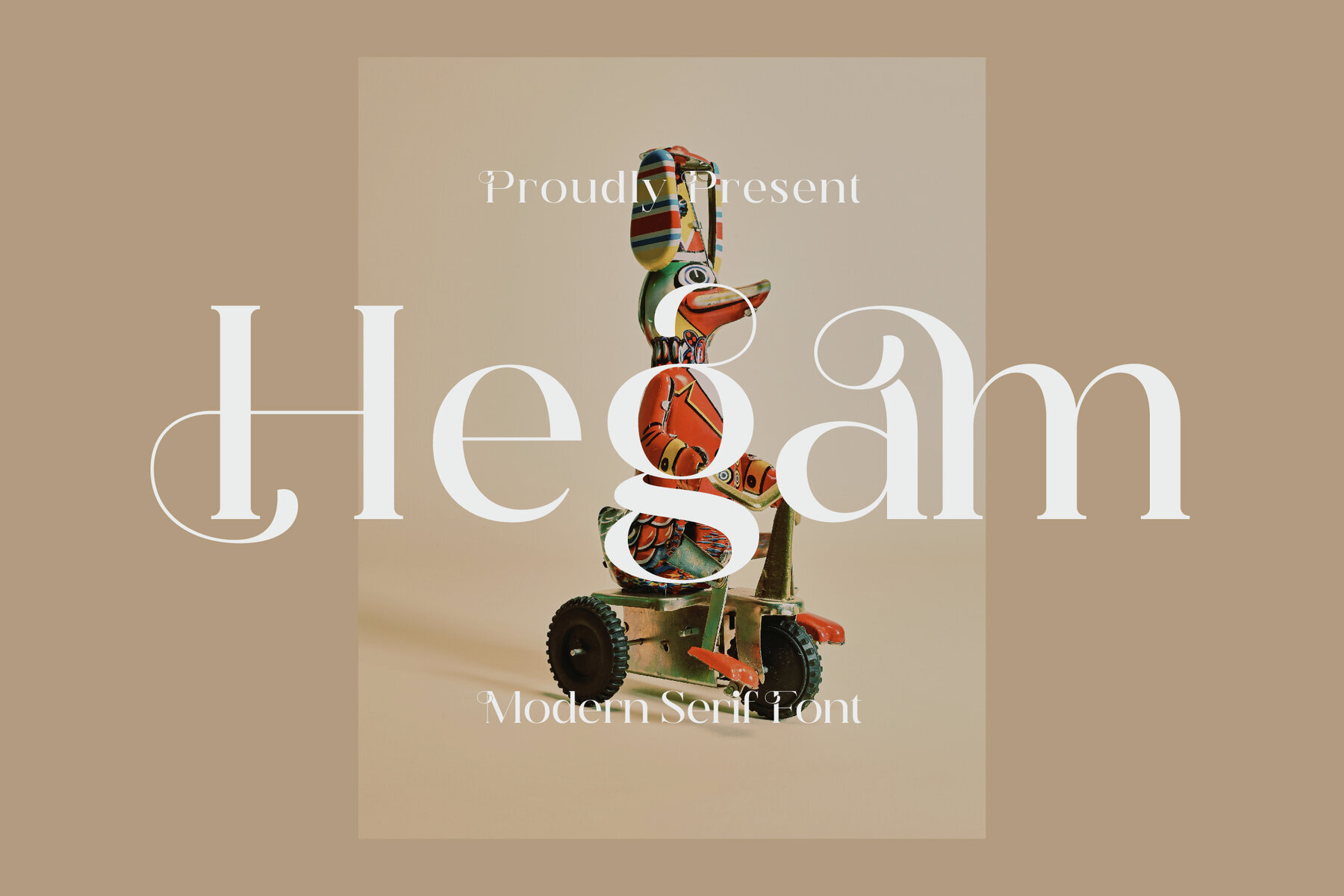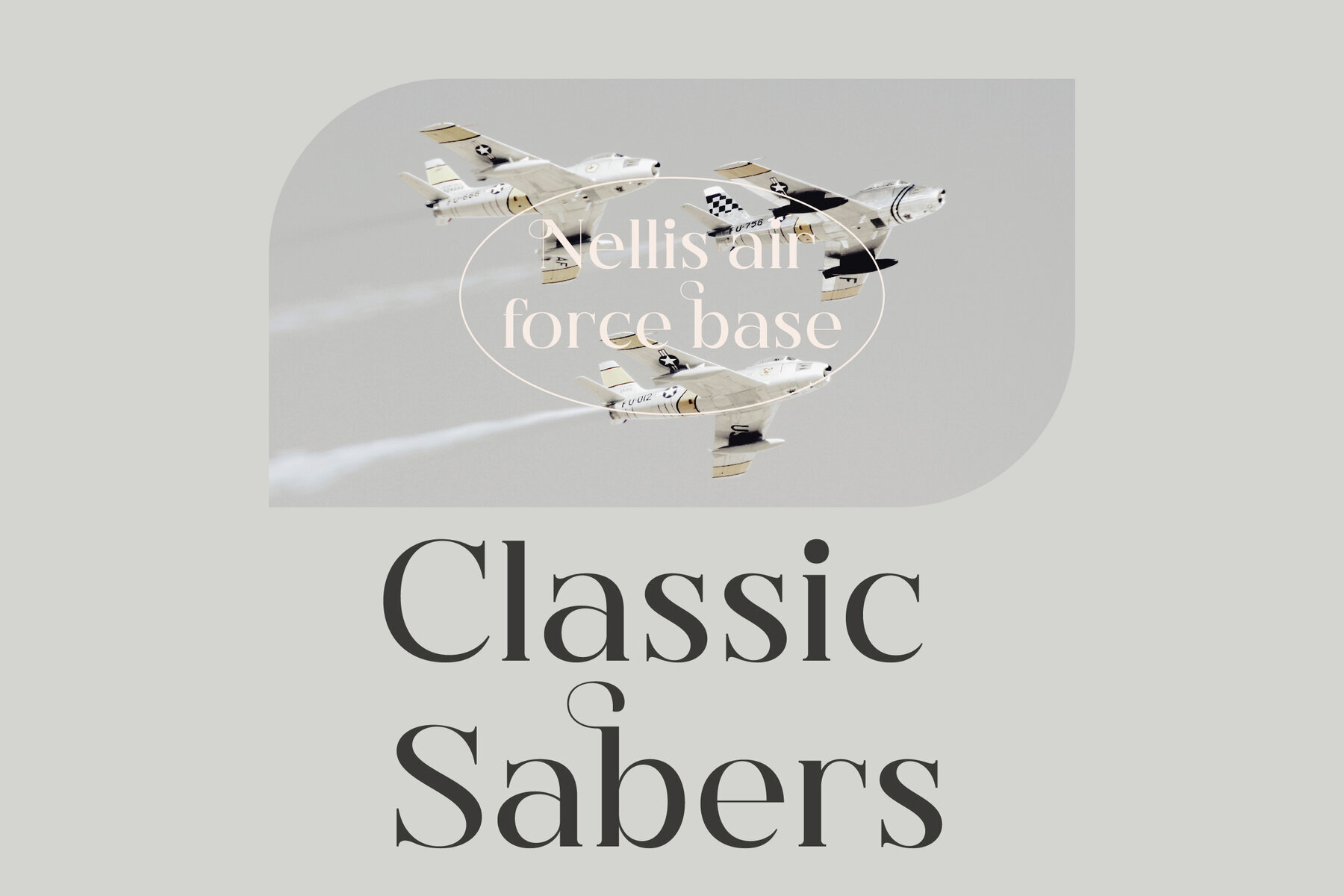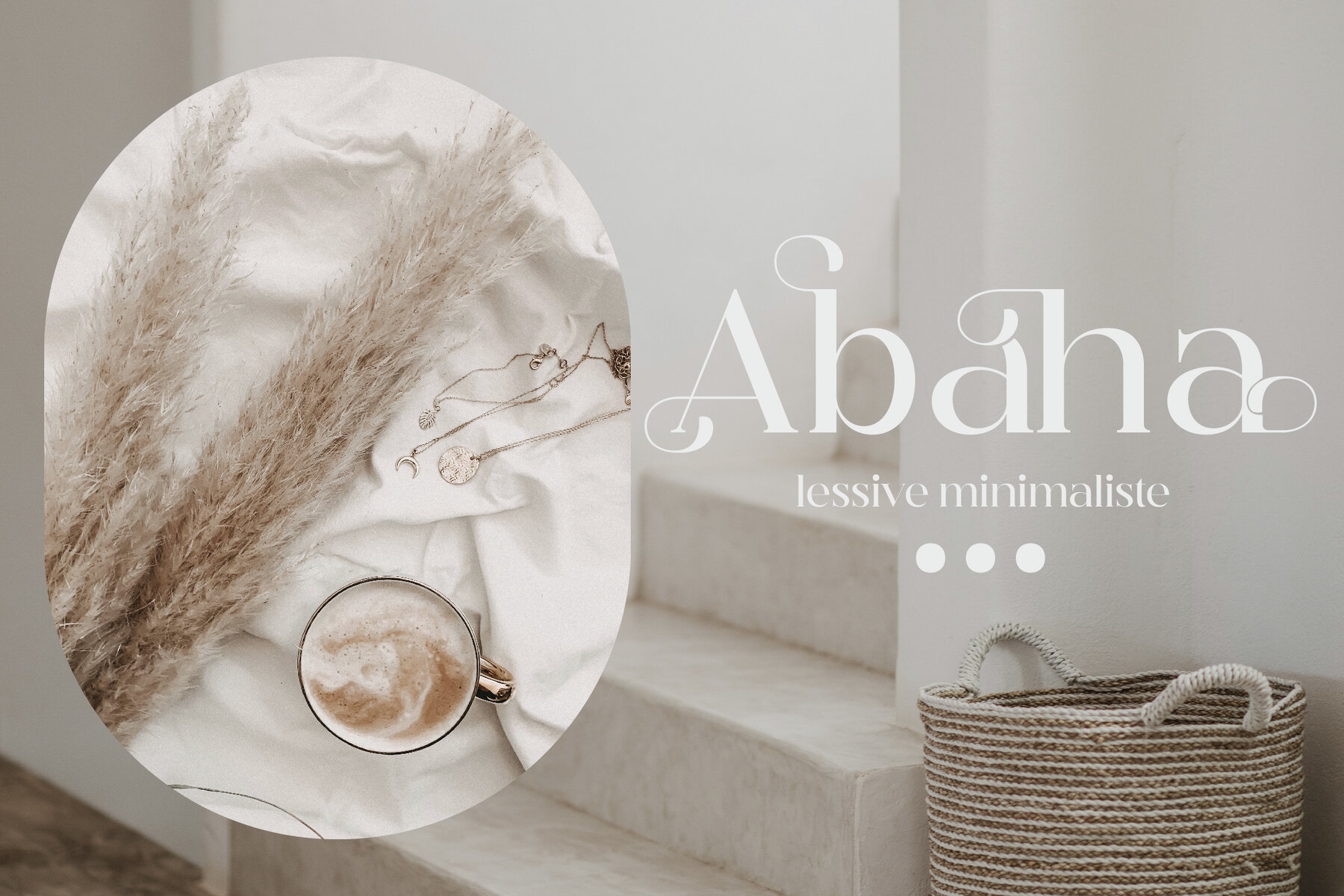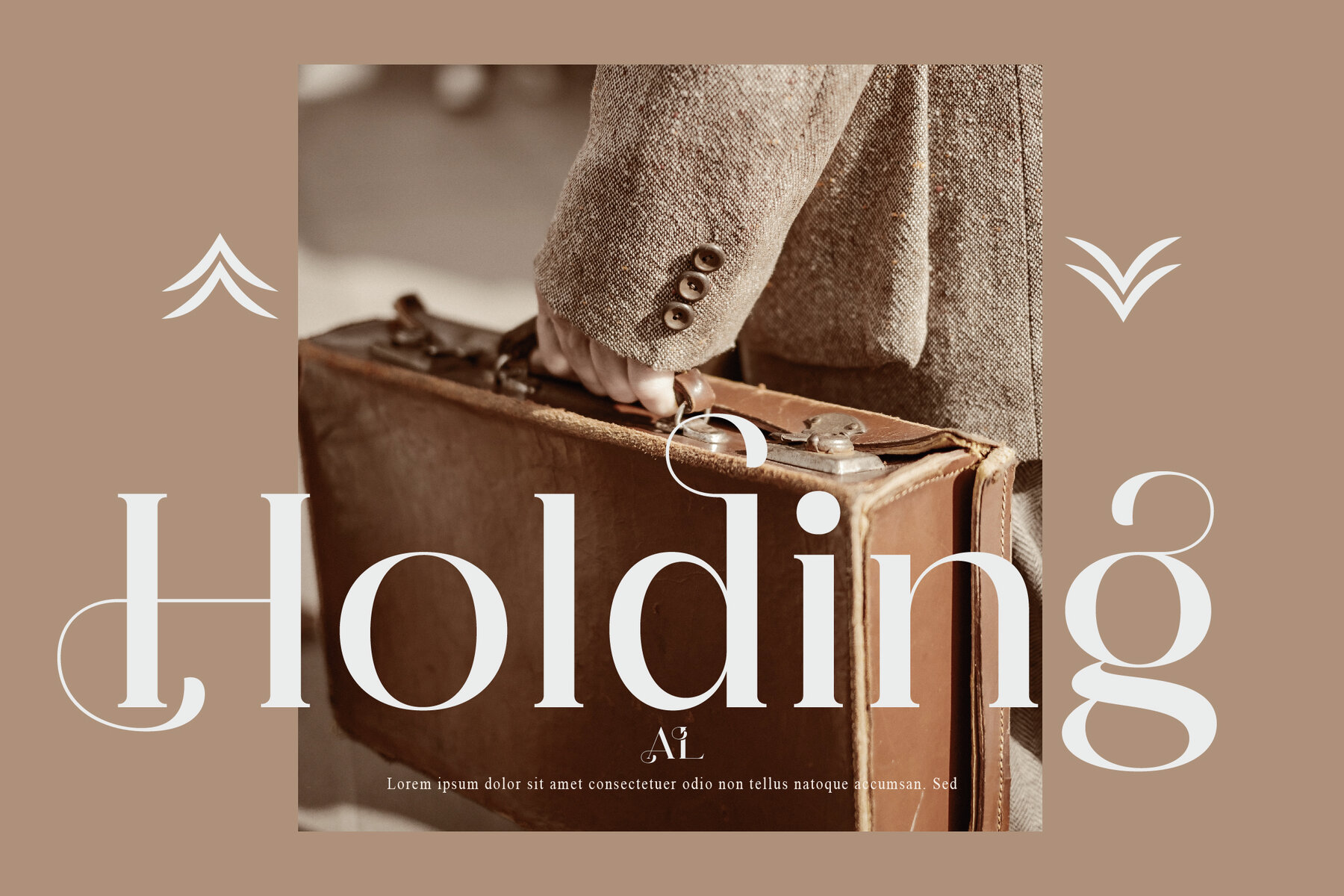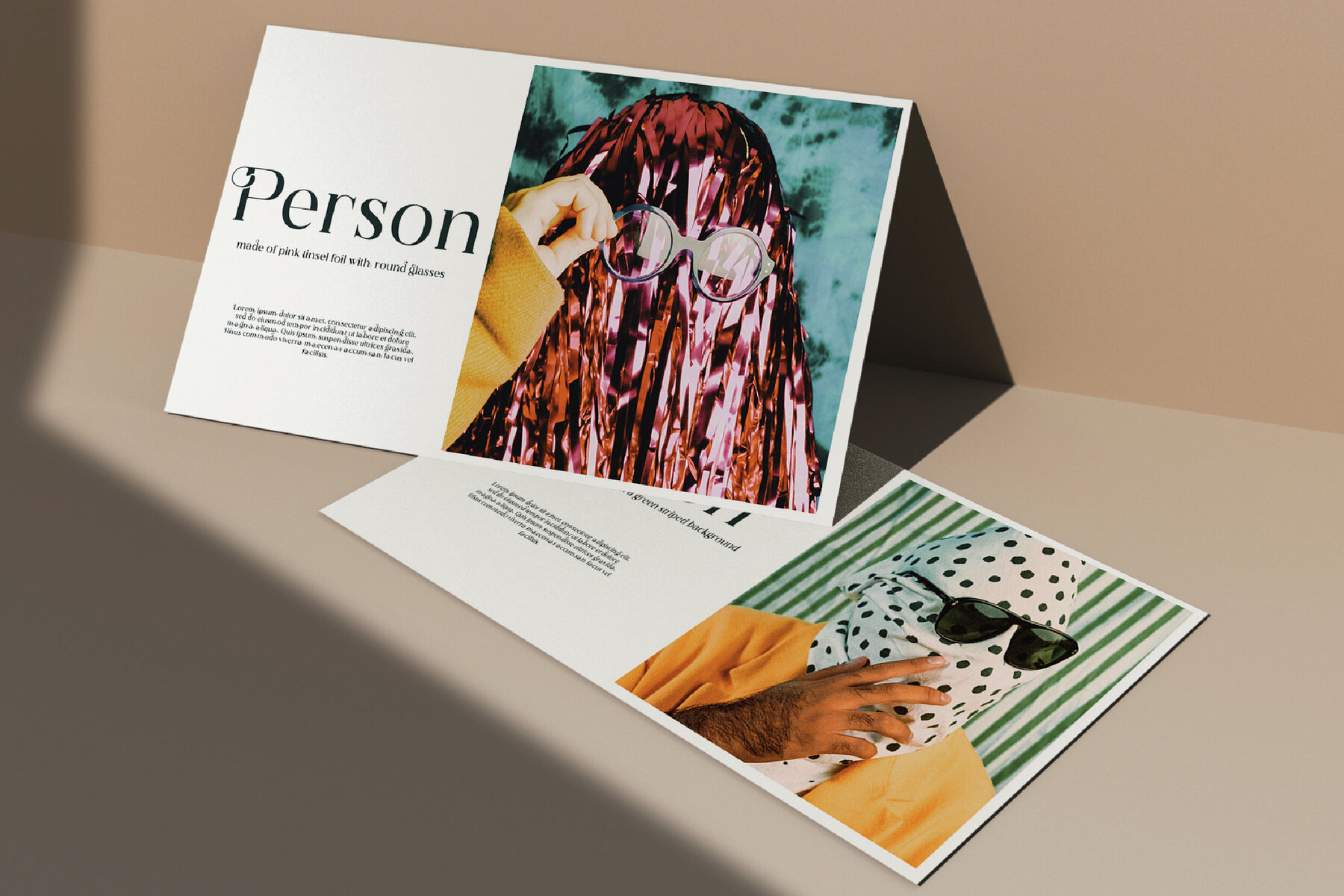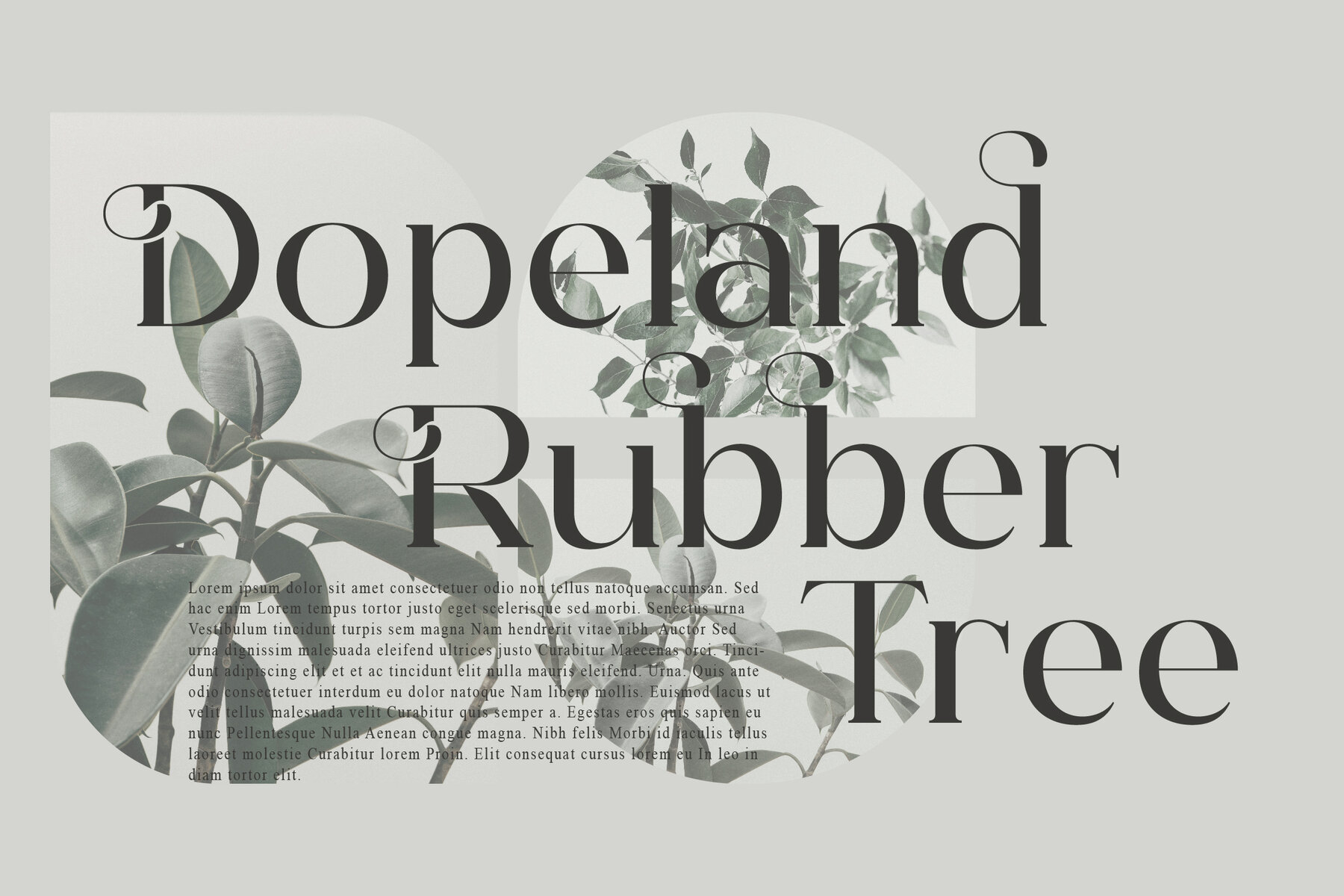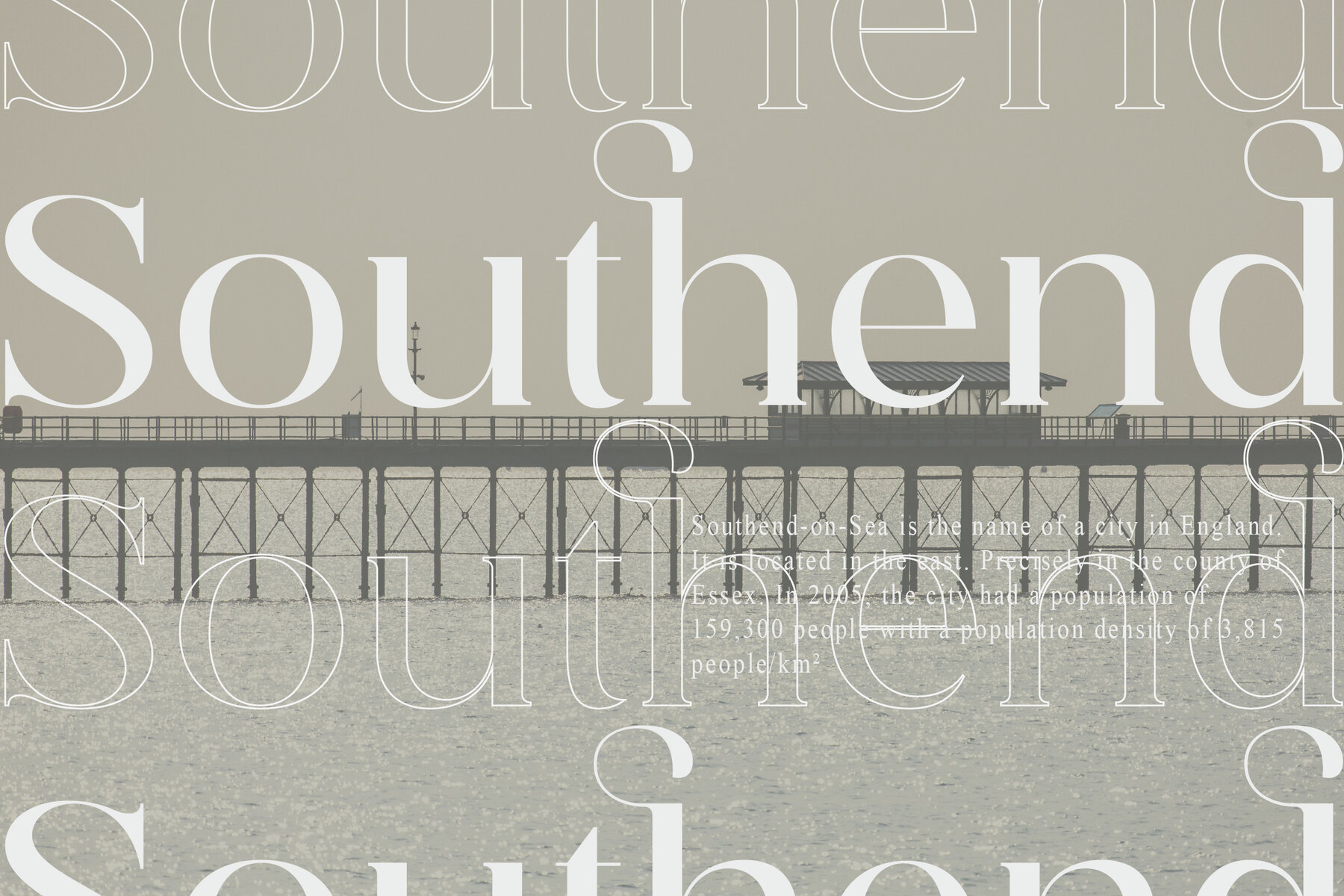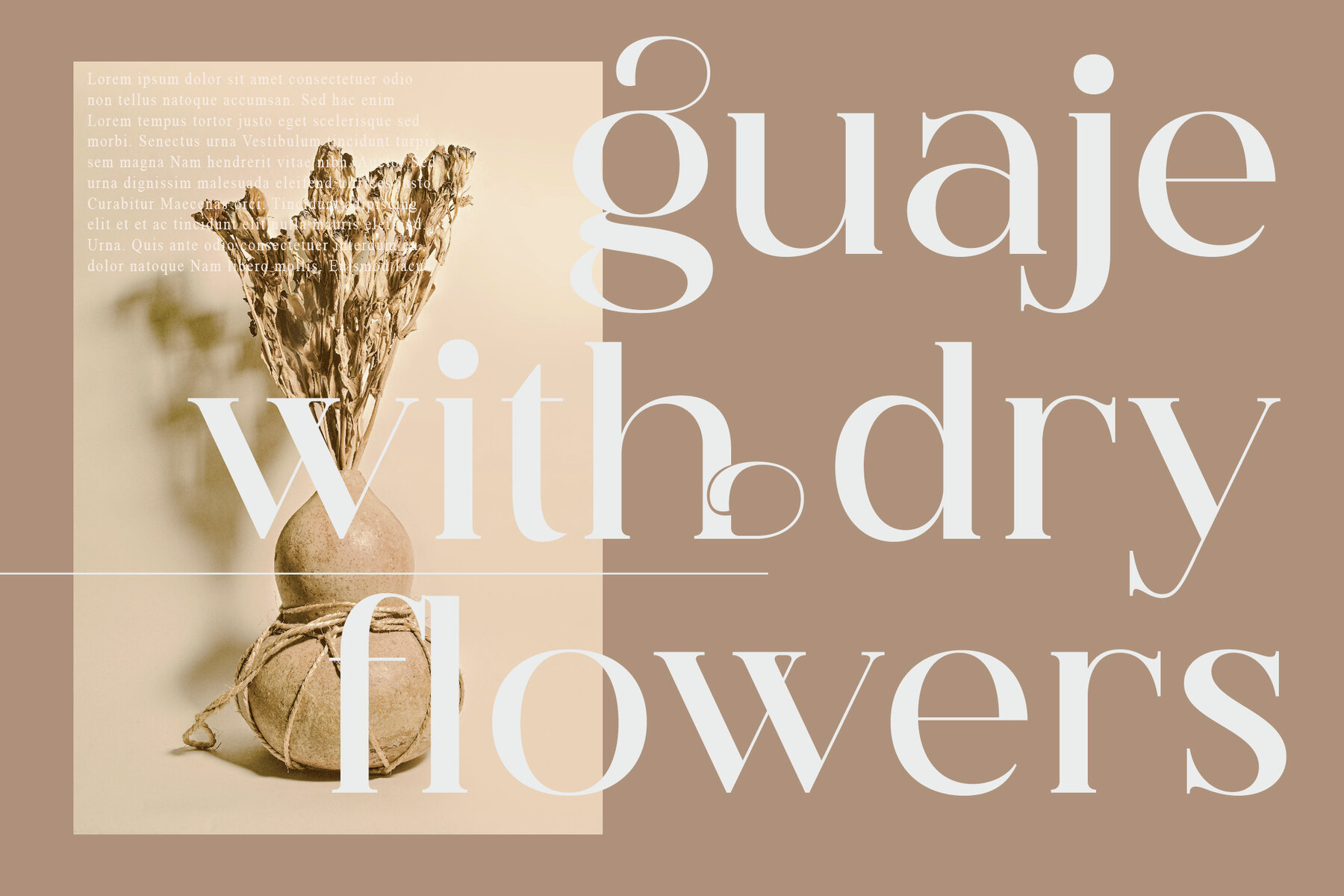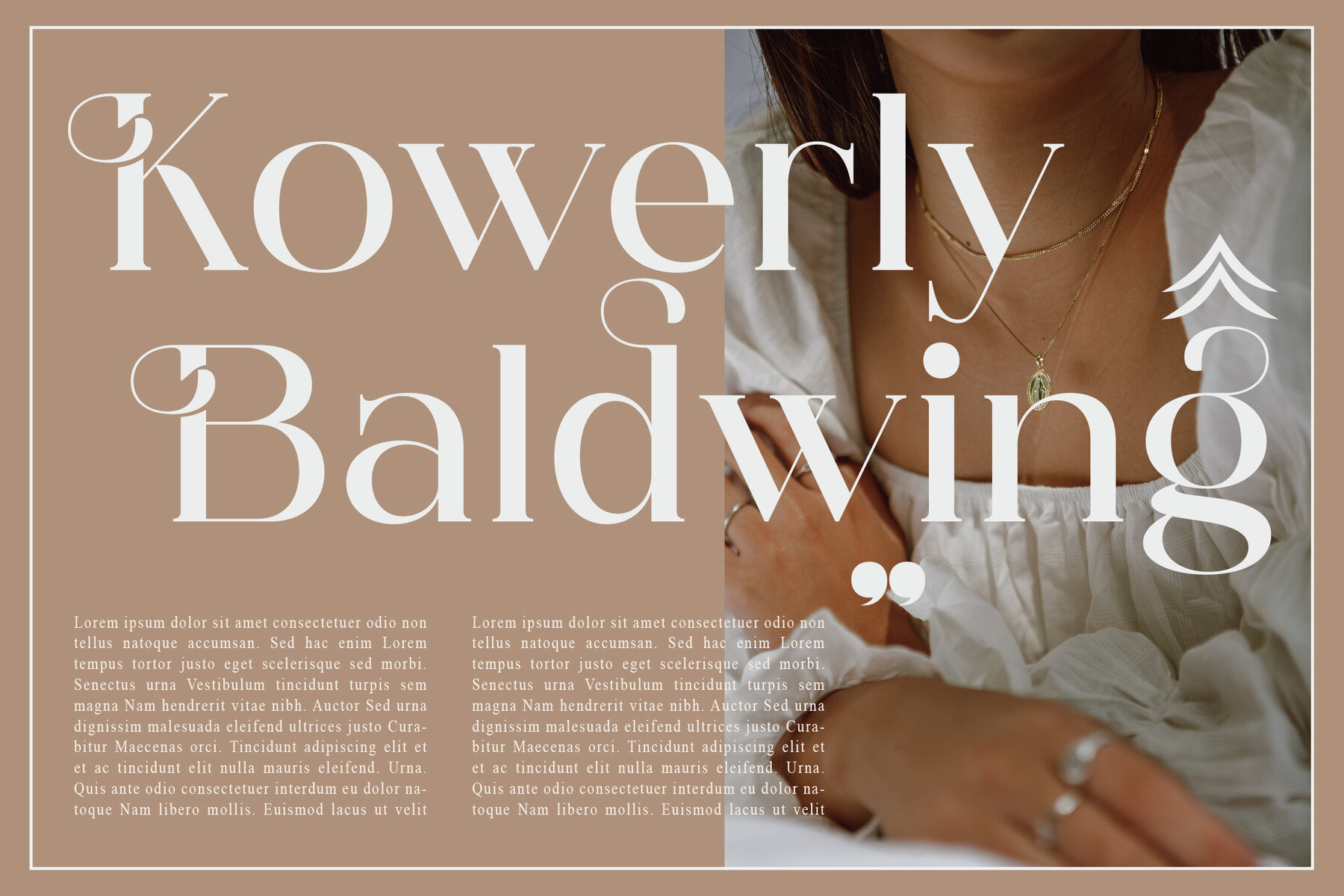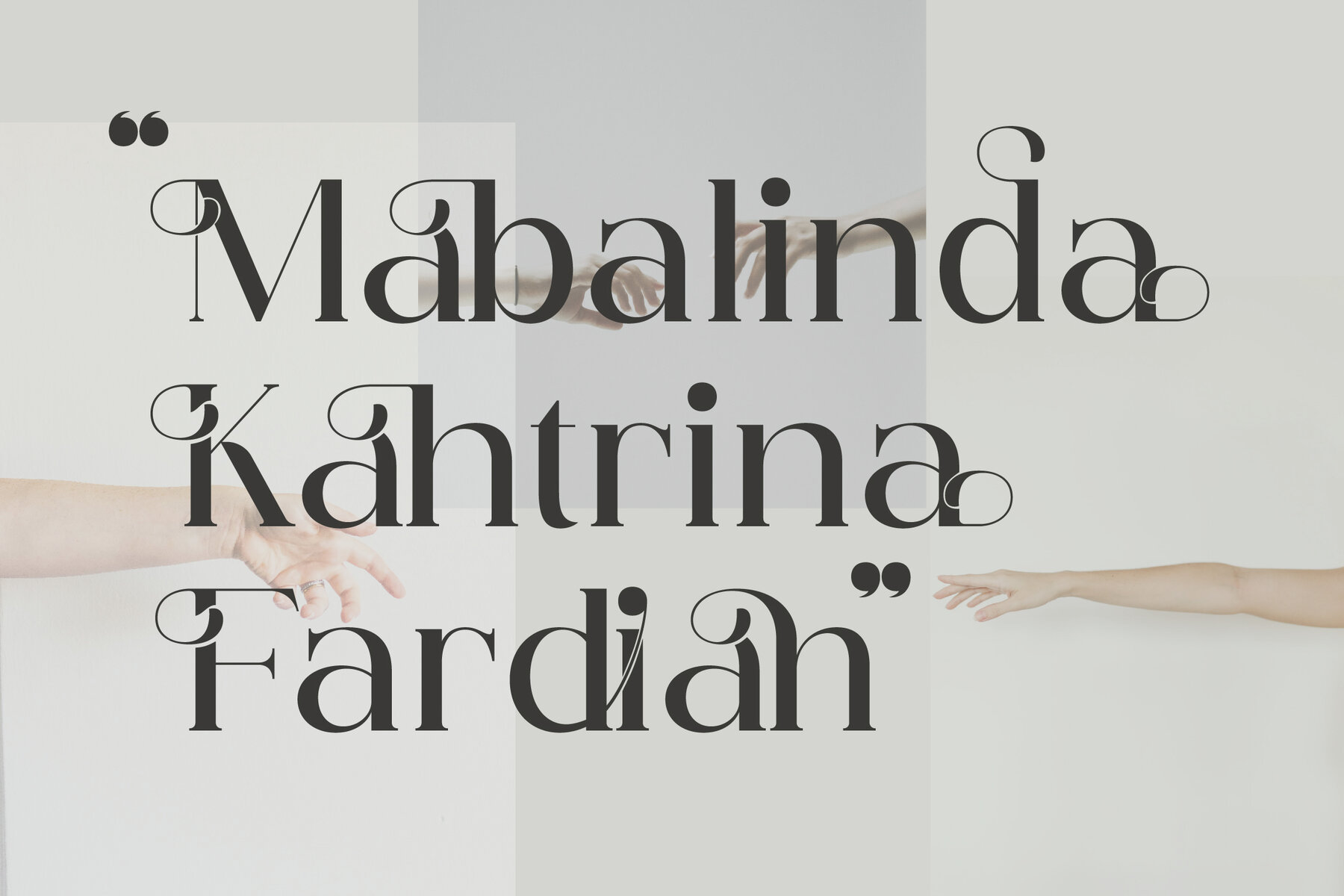
Hegam Font
Hegam Typeface offers a captivating blend of modern and classic serif styles, exuding a unique elegance that is perfect for luxury branding and design projects. Whether you're crafting an upscale logo, a striking book or movie title, or enhancing a fashion brand, Hegam provides the refined aesthetic you need. Its versatile design also suits magazine layouts, clothing designs, impactful quotes, and more, making it a valuable asset in any designer's toolkit.
This typeface includes standard glyphs as well as alternate characters and ligatures, ensuring a wide range of design possibilities. Installation is simple, whether on PC or Mac, and the font is fully compatible with popular software like Adobe Illustrator, Photoshop, InDesign, and even Microsoft Word. Hegam's PUA encoded characters mean that all glyphs are easily accessible without the need for additional design software. Additionally, multilingual support broadens its usability for global projects.